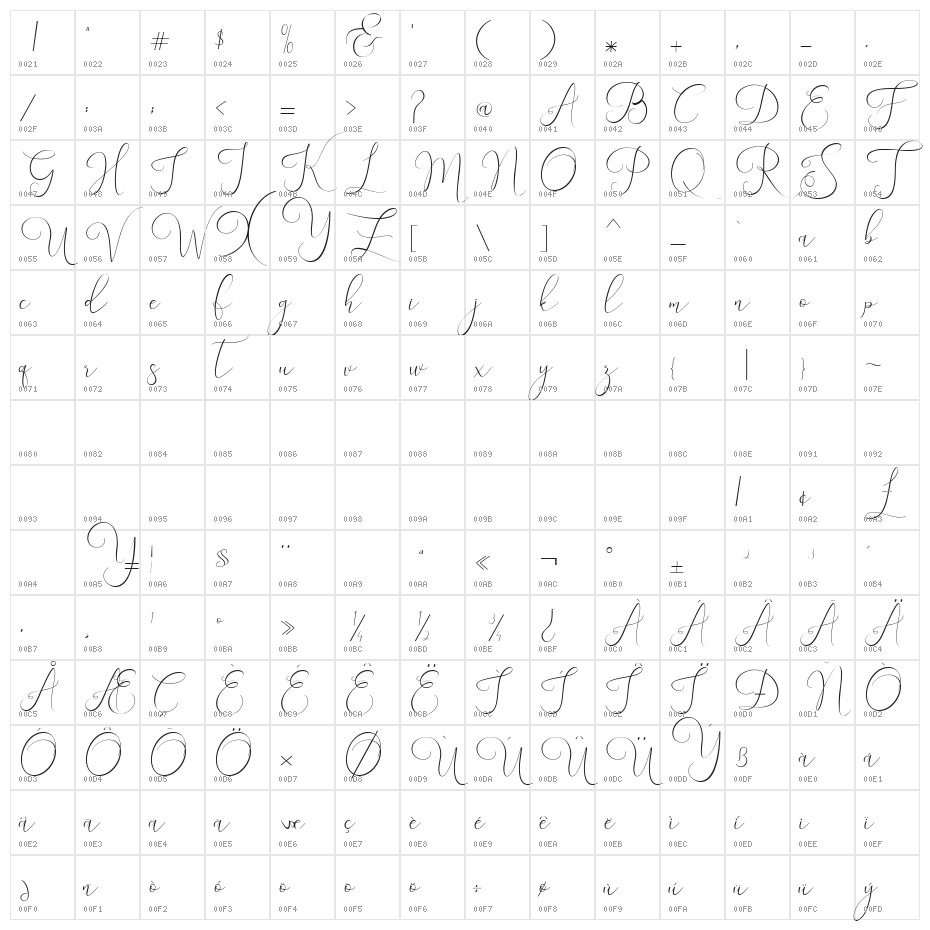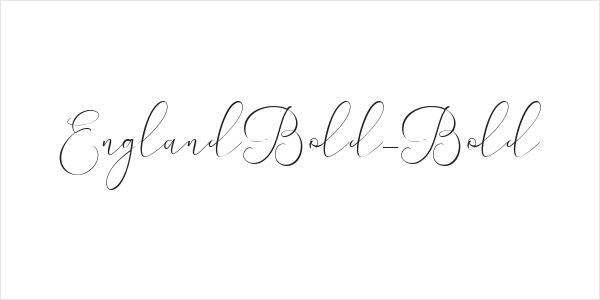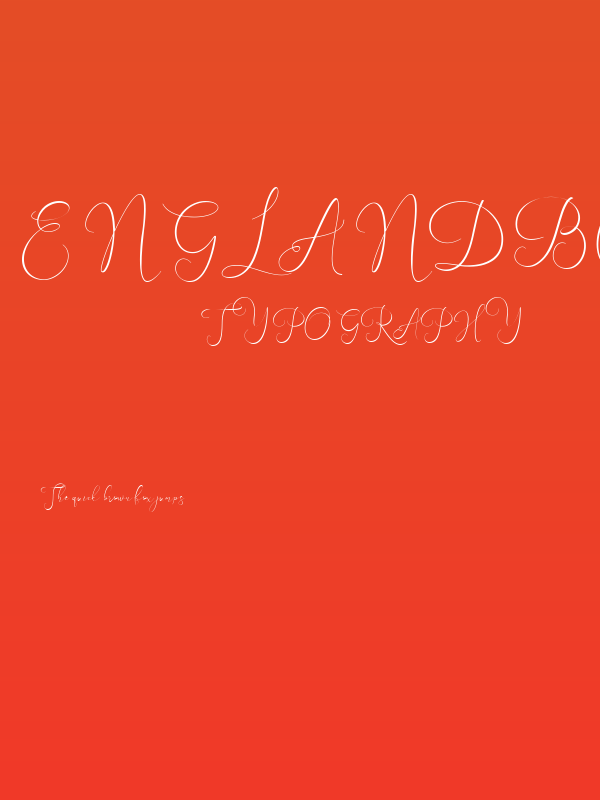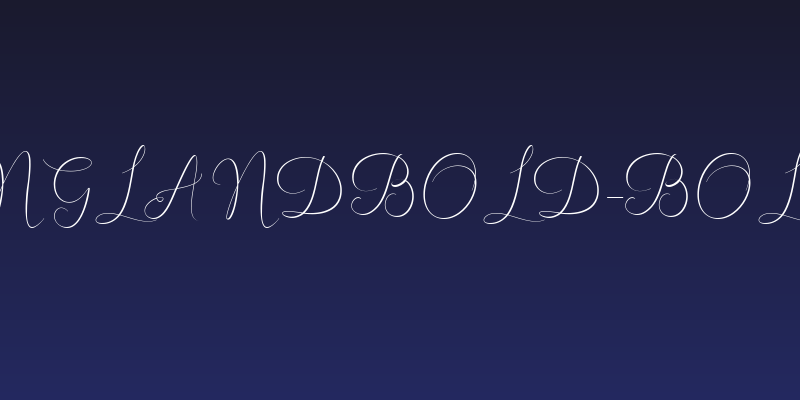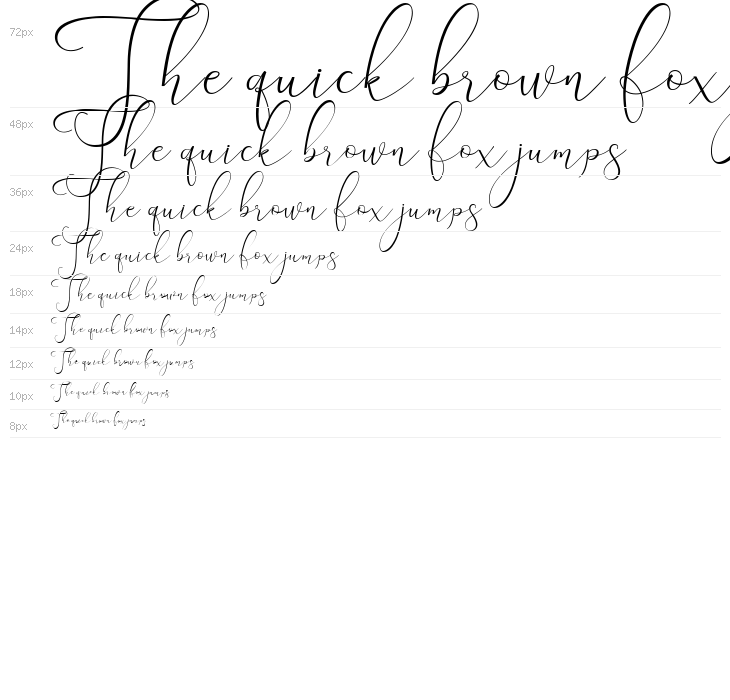
EnglandBold-Bold Font
EnglandBold-Bold Description
This elegant script font features a flowing, cursive style with delicate loops and swashes, creating a sophisticated and graceful appearance. The uppercase letters are ornate, with intricate details that add a touch of luxury, while the lowercase letters maintain a smooth, connected flow. The font's thin strokes and high contrast between thick and thin lines enhance its refined look, making it ideal for formal invitations, branding, and high-end design projects. The special characters and numerals are crafted with the same attention to detail, ensuring consistency throughout the font.
| Overall Style | Elegant, Sophisticated |
| Use Case | Invitations, Branding, Logos |
| Proposed Projects | Ideal for wedding invitations, luxury branding, elegant logos, and formal stationery. |